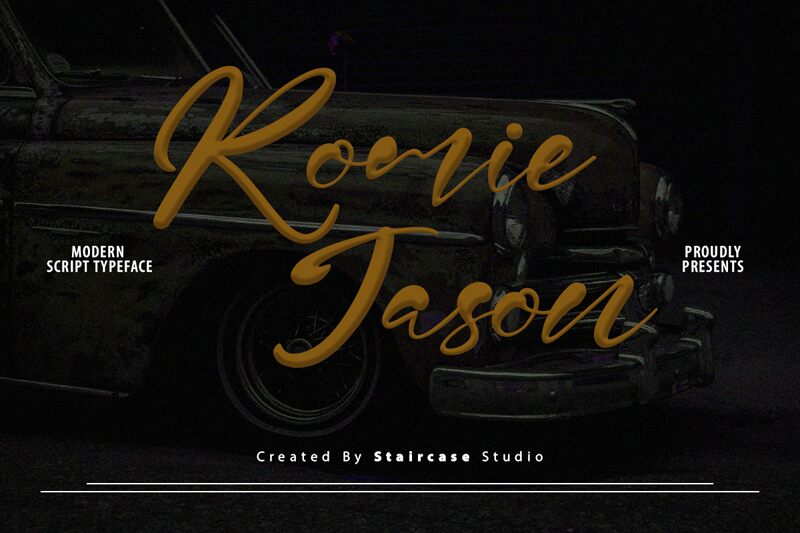
Romie Jason
Romie Jason is a modern script typeface designed by Staircase Studio. Its semi-light weight and elegant curves make it perfect for various design projects, from wedding invitations to branding materials. The flowing strokes of Romie Jason add a touch of sophistication and playfulness to any design, making it suitable for logos, social media graphics, packaging, and more. With its unique style and versatility, this font will surely elevate your designs to the next level. Try out Romie Jason for your next project and see how it transforms your work into something truly special.